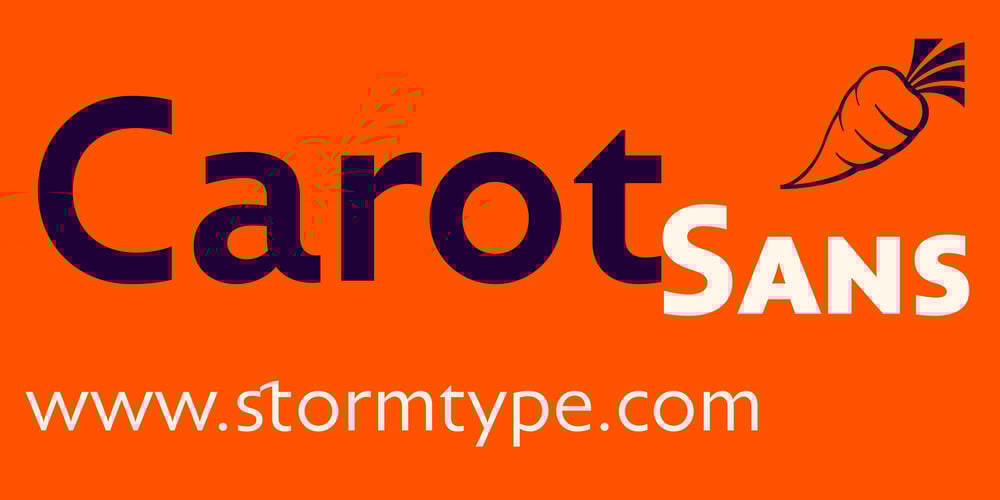
Carot Sans Font Family was designed by František Štorm and published by Storm Type Foundry. Carot Sans contains 16 styles and family package options. Carot Sans is designed on the basis of three elements – square, circle and triangle. Simple and fresh typeface for visual identities, book covers, magazines and advertisement.The whole Carot system of 64 members offers a modern alternative for all types of design work.